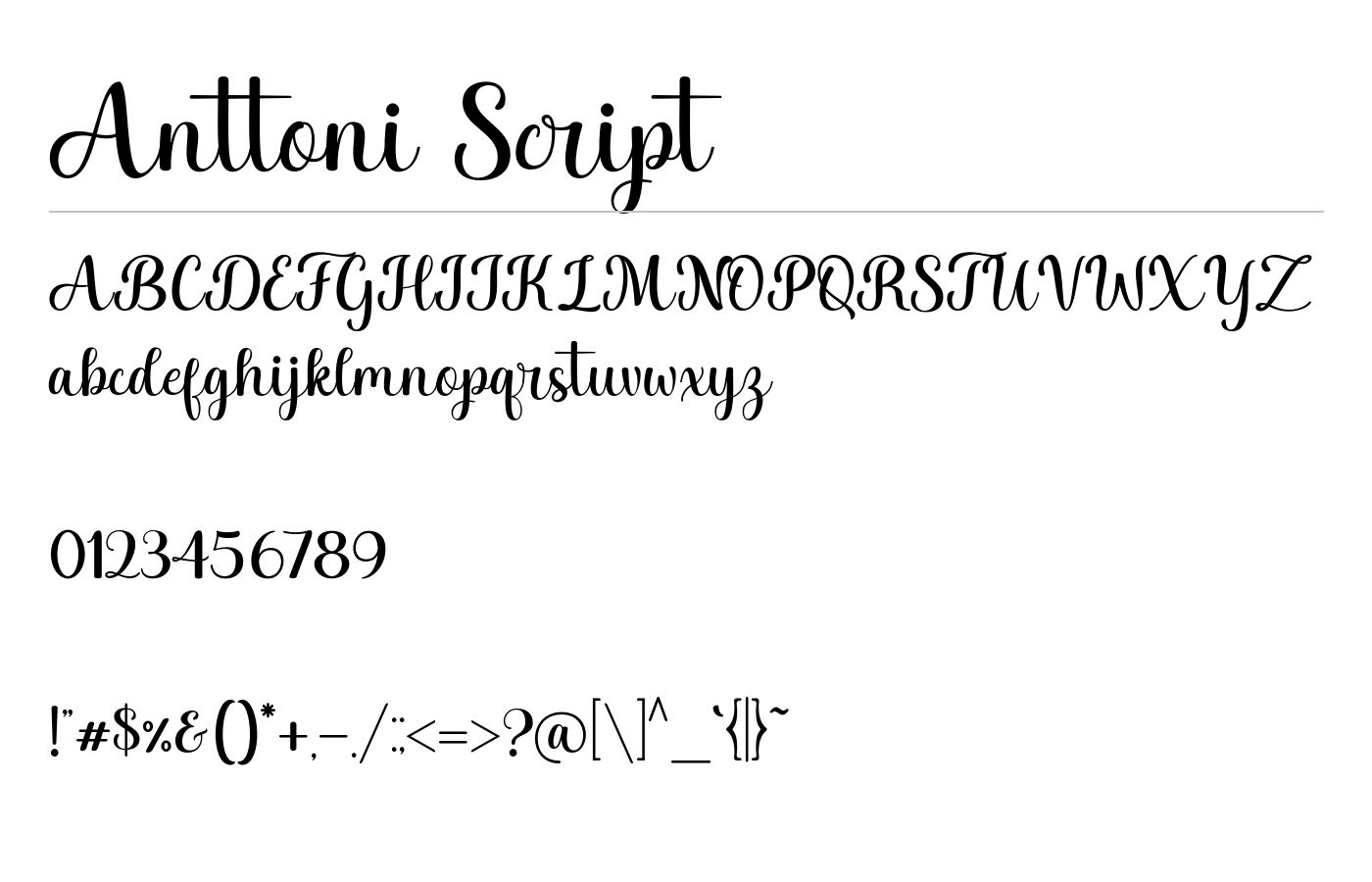
Anttoni Script is an elegant and flowing script font characterized by its smooth, connected letterforms and delicate strokes, combining a modern handwritten feel with a touch of classic refinement. Its moderate contrast and whimsical curves make it perfect for branding, invitations, and stylish headlines that seek a personal yet sophisticated look. This font works especially well in fashion, luxury, and creative designs where a graceful and charming personality is desired.
Anttoni Script Font